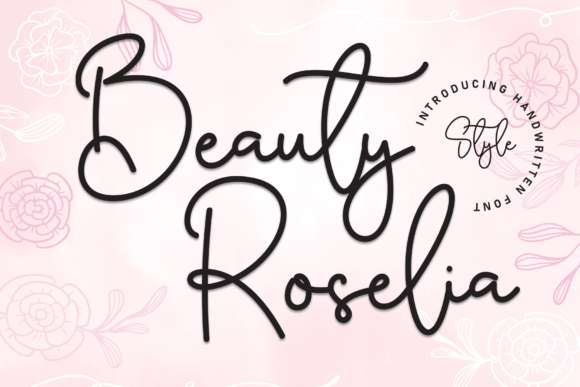
Introducing Beauty Roselia Font: The Sweet and Friendly Handwritten Font
Are you looking for a font that can add a touch of sweetness and friendliness to your designs? Look no further than Beauty Roselia Font. This beautiful handwritten font is perfect for a wide range of design projects, from branding and advertising to packaging and digital media. In this article, we’ll take a closer look at Beauty Roselia Font and explore its unique features, uses, and benefits.
What is Beauty Roselia Font?
Beauty Roselia Font is a sweet and friendly handwritten font that is designed to add a personal touch to your designs. Its natural and unique style makes it incredibly fitting to a large pool of designs, from feminine and elegant to playful and whimsical. The font is perfect for designers who want to create a warm and inviting atmosphere in their work.
Key Features of Beauty Roselia Font
So, what makes Beauty Roselia Font so special? Here are some of its key features:
- Handwritten style: Beauty Roselia Font has a beautiful handwritten style that gives it a personal and unique touch.
- Sweet and friendly: The font has a sweet and friendly feel to it, making it perfect for designs that require a warm and inviting atmosphere.
- Natural and unique: The font’s natural and unique style makes it incredibly fitting to a wide range of designs.
- Highly versatile: Beauty Roselia Font can be used for a variety of design projects, from branding and advertising to packaging and digital media.
Uses of Beauty Roselia Font
Beauty Roselia Font is a highly versatile font that can be used for a wide range of design projects. Here are some examples of how you can use this beautiful font:
- Branding and advertising: Use Beauty Roselia Font to create beautiful and eye-catching logos, advertisements, and marketing materials.
- Packaging design: The font is perfect for packaging design, adding a personal touch to product labels and packaging.
- Digital media: Use Beauty Roselia Font to create engaging and interactive digital media, such as social media graphics, blog posts, and website content.
- Stationery and invitations: The font is also perfect for creating beautiful stationery, invitations, and greeting cards.
Benefits of Using Beauty Roselia Font
So, why should you use Beauty Roselia Font in your designs? Here are some benefits of using this beautiful font:
- Adds a personal touch: Beauty Roselia Font adds a personal touch to your designs, making them more relatable and engaging.
- Increases creativity: The font’s unique and natural style can inspire creativity and help you think outside the box.
- Improves brand identity: Using Beauty Roselia Font can help you create a consistent brand identity that is warm, inviting, and memorable.
- Easy to read: The font is easy to read, making it perfect for body text and other written content.
Tips and Tricks for Using Beauty Roselia Font
Here are some tips and tricks for using Beauty Roselia Font:
- Use it sparingly: Use Beauty Roselia Font sparingly to avoid overwhelming your design.
- Mix and match: Mix and match Beauty Roselia Font with other fonts to create a unique and interesting design.
- Experiment with colors: Experiment with different colors and textures to add depth and interest to your design.
- Keep it simple: Keep your design simple and clean to let Beauty Roselia Font shine.
In conclusion, Beauty Roselia Font is a beautiful and versatile handwritten font that can add a touch of sweetness and friendliness to your designs. Its natural and unique style makes it incredibly fitting to a wide range of designs, from branding and advertising to packaging and digital media. With its ease of use and flexibility, Beauty Roselia Font is a great addition to any designer’s font library.
- What is Beauty Roselia Font?: Beauty Roselia Font is a sweet and friendly handwritten font.